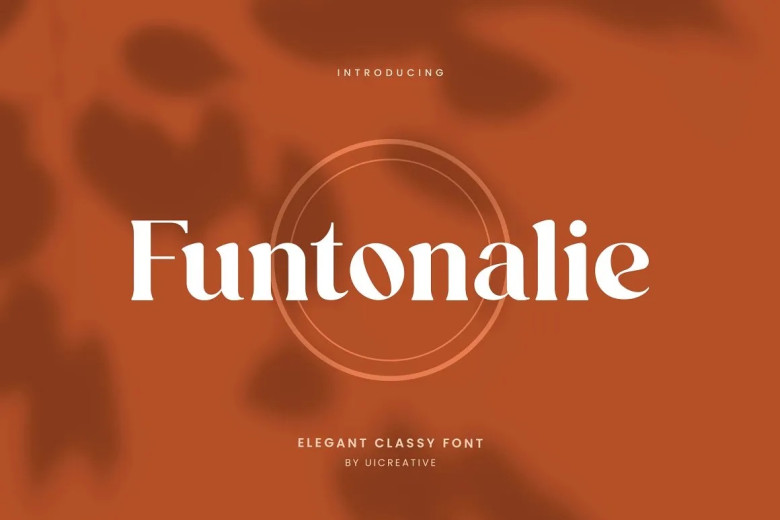
Funtonalie Font
Funtonalie is an elegant serif font that feels classical, elegant, and modern. This font is ideally suited for a wide variety of projects, such as signature, stationery, logo, wedding, typography quotes.
Funtonalie Serif Font